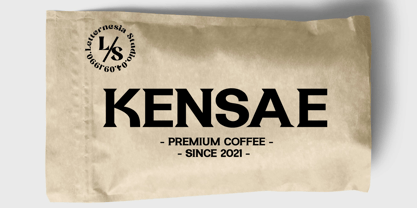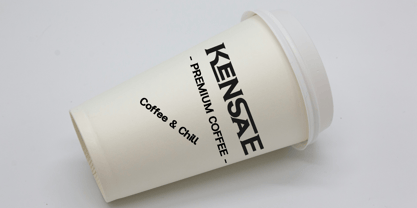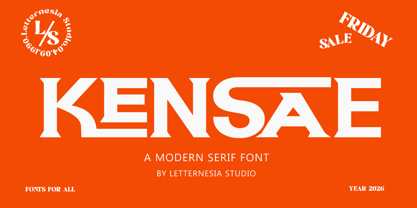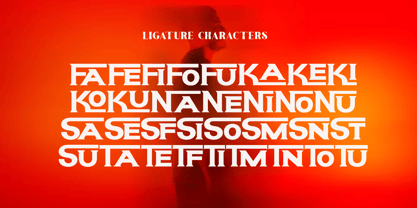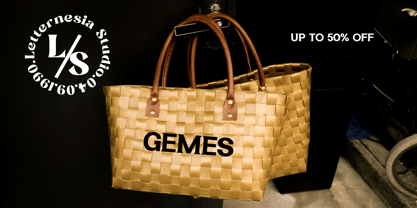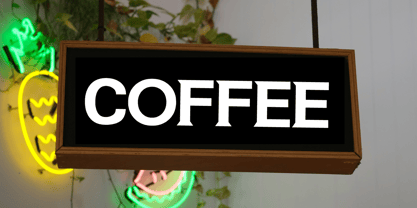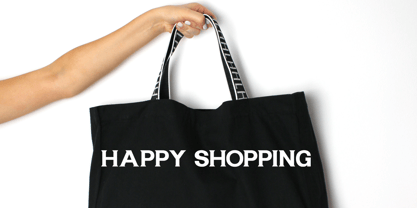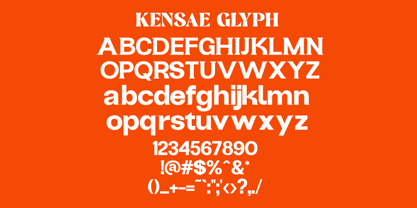
Kensae
par Letternesia studio
La famille de polices Kensae a été conçue par Ta Siyo et publiée par Letternesia studio. Kensae contient 2 styles et options de package familial. En savoir plus sur cette famille
KENSAE is a bold and stylish display font designed to make a strong visual impact. With its unique character shapes and modern aesthetic, this typeface is perfect for eye-catching designs that need personality and clarity. KENSAE combines creative letterforms with a clean structure, making it ideal for logos, branding, posters, packaging, and headlines. The distinctive style adds a modern and confident touch to any project, helping your designs stand out effortlessly. This display font is carefully crafted to deliver both readability and visual appeal, making it a great choice for designers looking to create memorable typography.